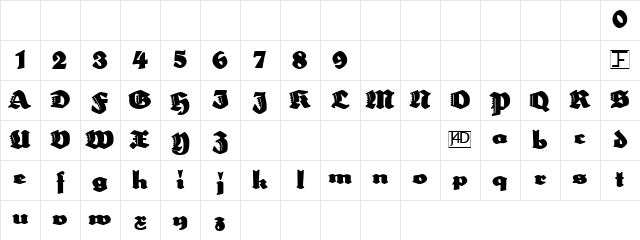
Poseidon Normal Free Font
Poseidon Normal
Design Context for Poseidon
Poseidon is a composed and adaptable typeface that performs quietly and consistently across a wide range of design contexts.